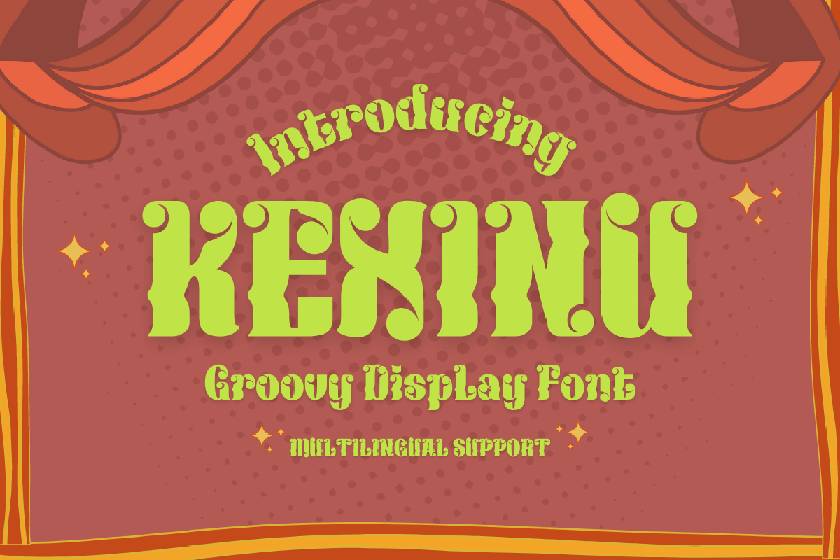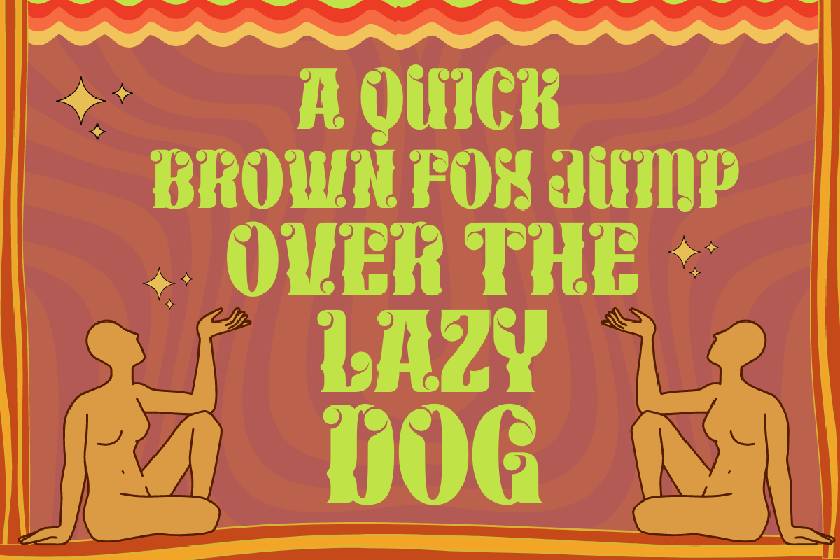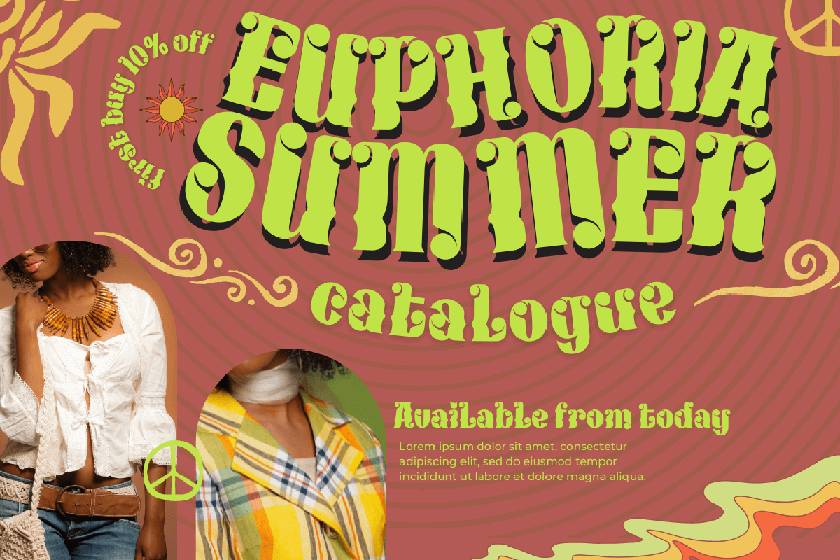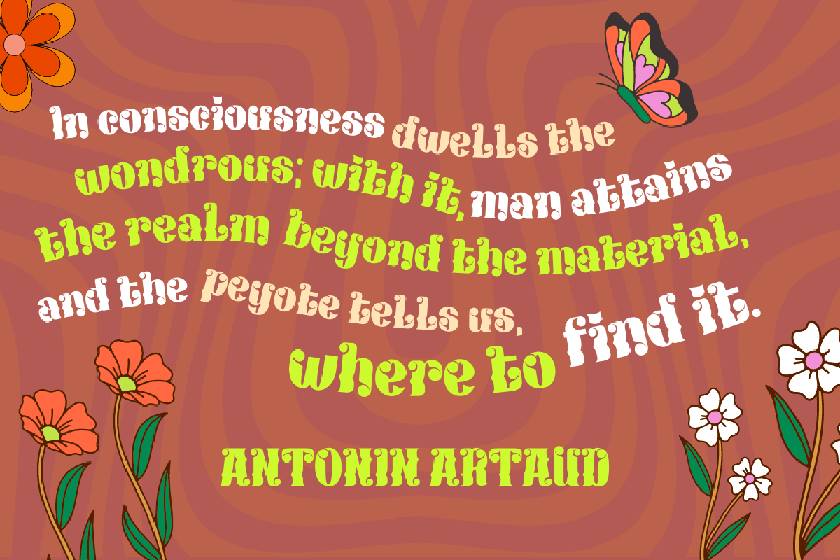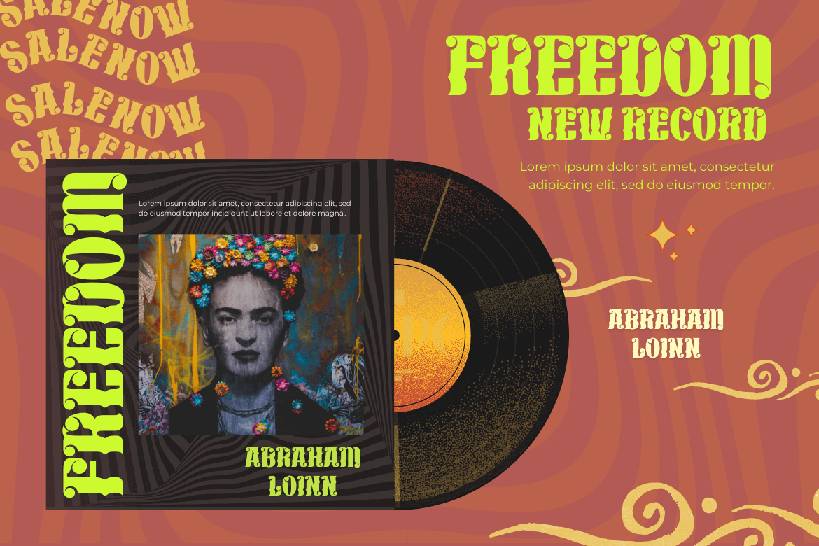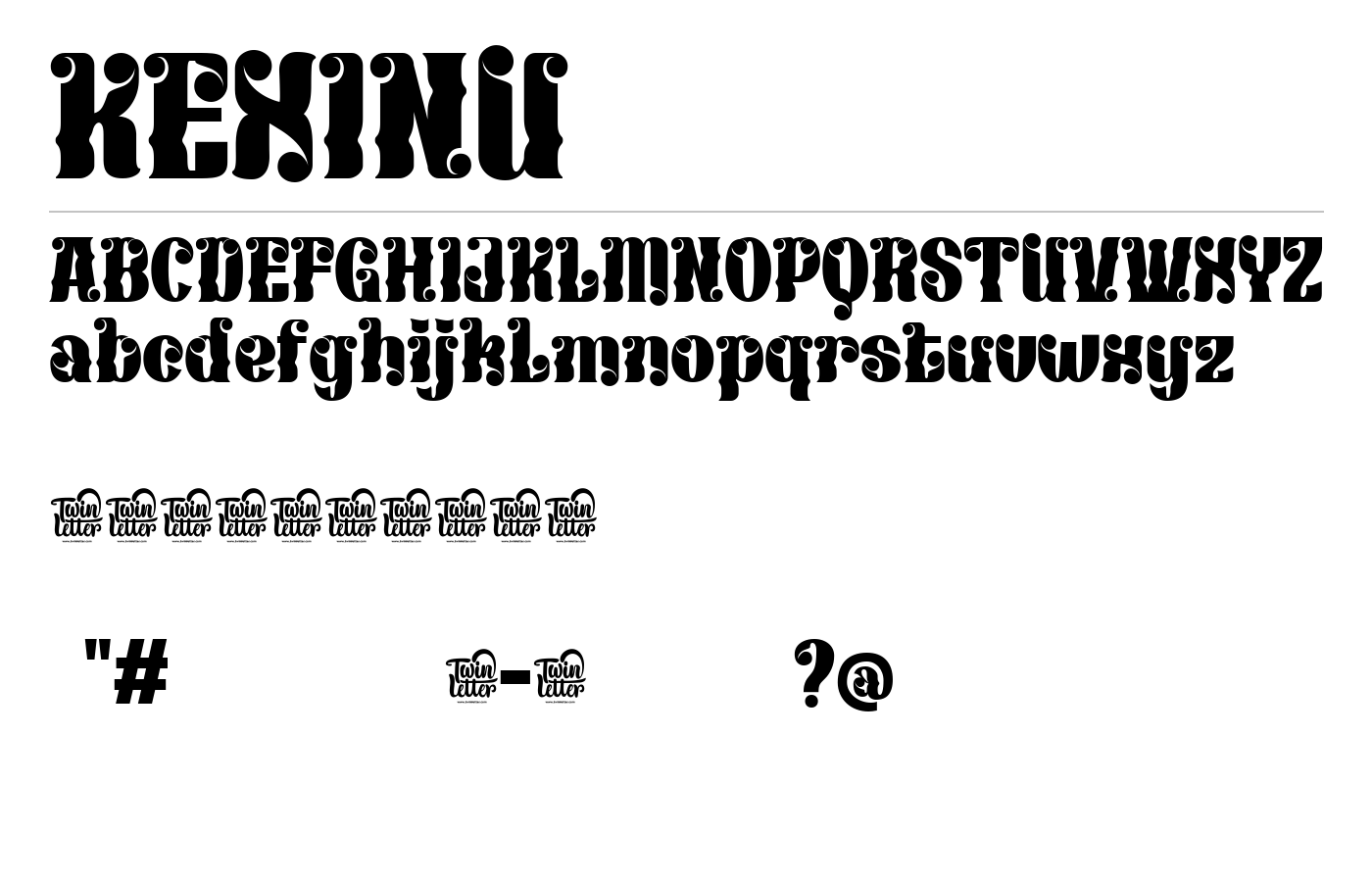
Kexinu is a bold, decorative slab serif font with strong contrast between thick and thin strokes, featuring playful swirls and rounded terminals that give it a vintage and artistic feel. Its unique letterforms and tight spacing make it ideal for eye-catching headlines, logos, and creative packaging where a statement look is desired. This font works perfectly for brands seeking a bold, retro vibe with a touch of whimsy.
Kexinu Font